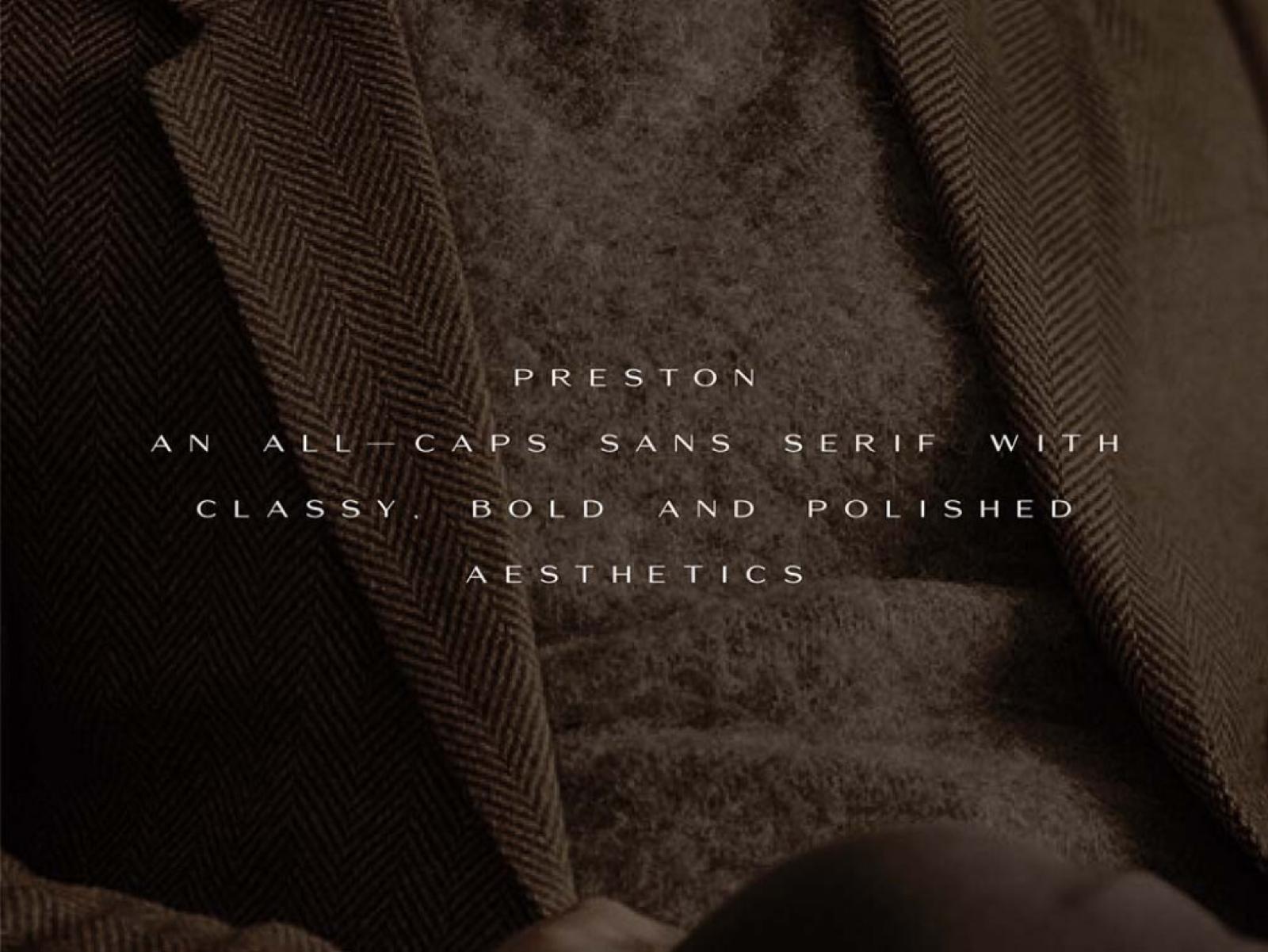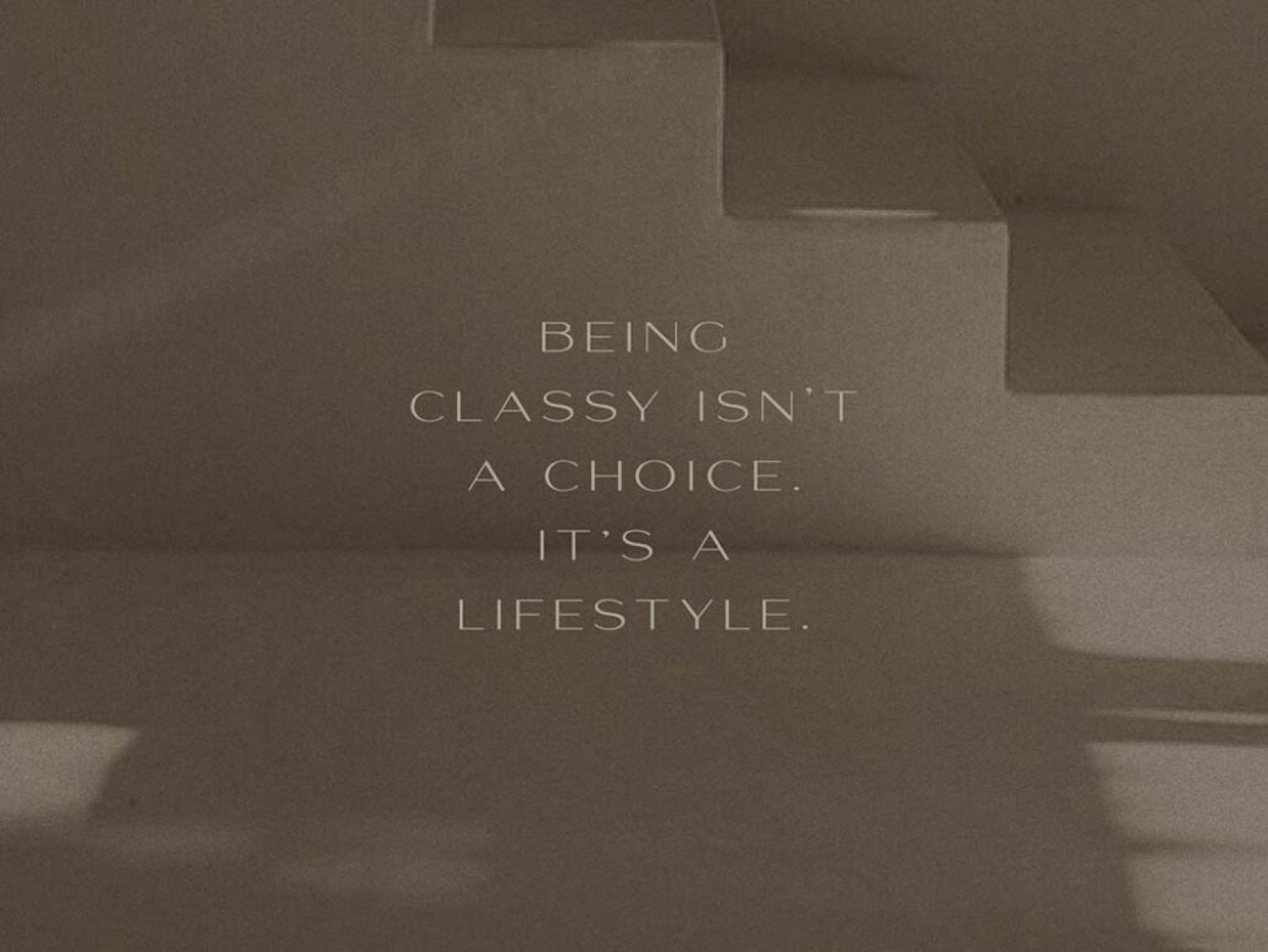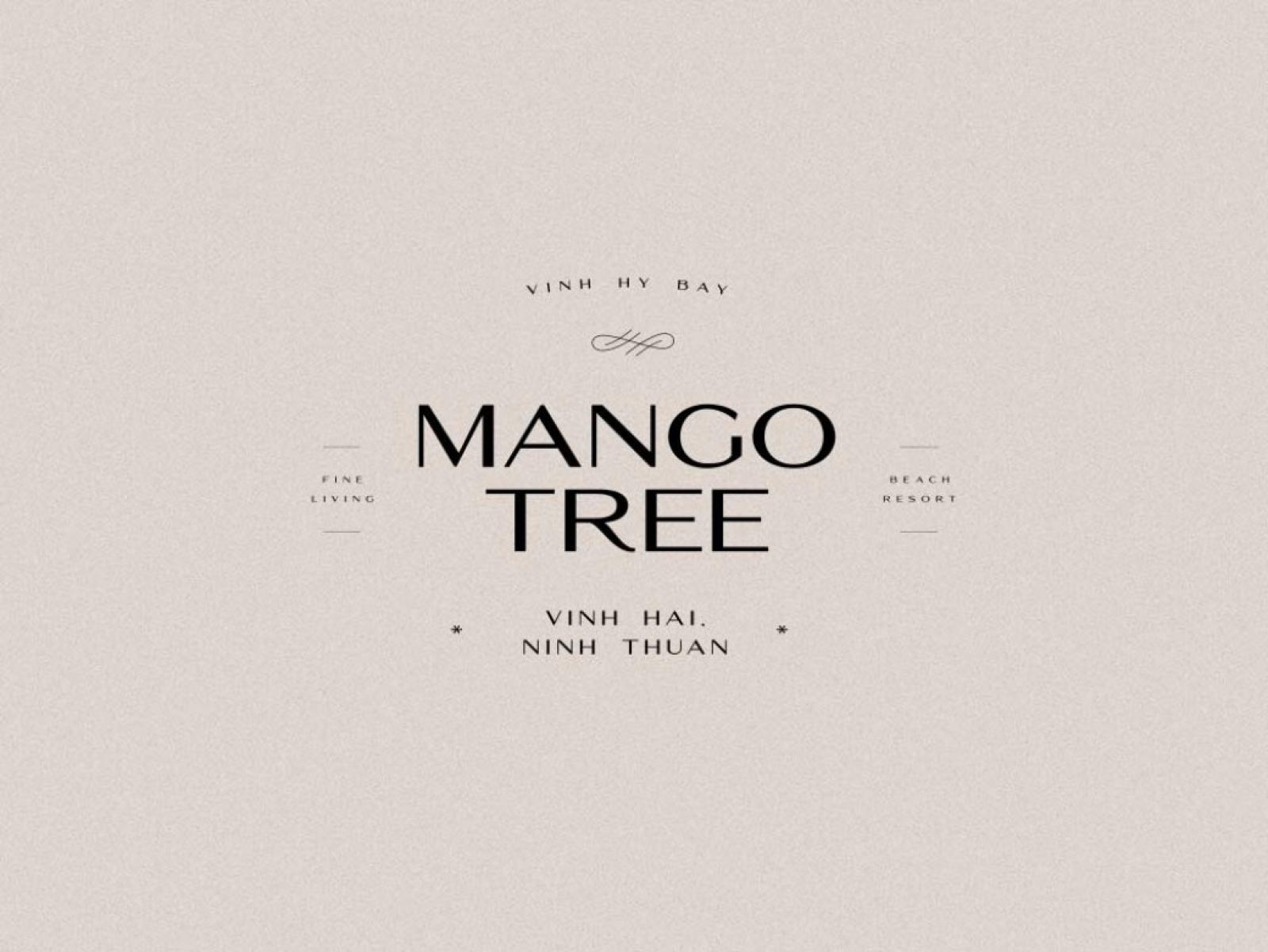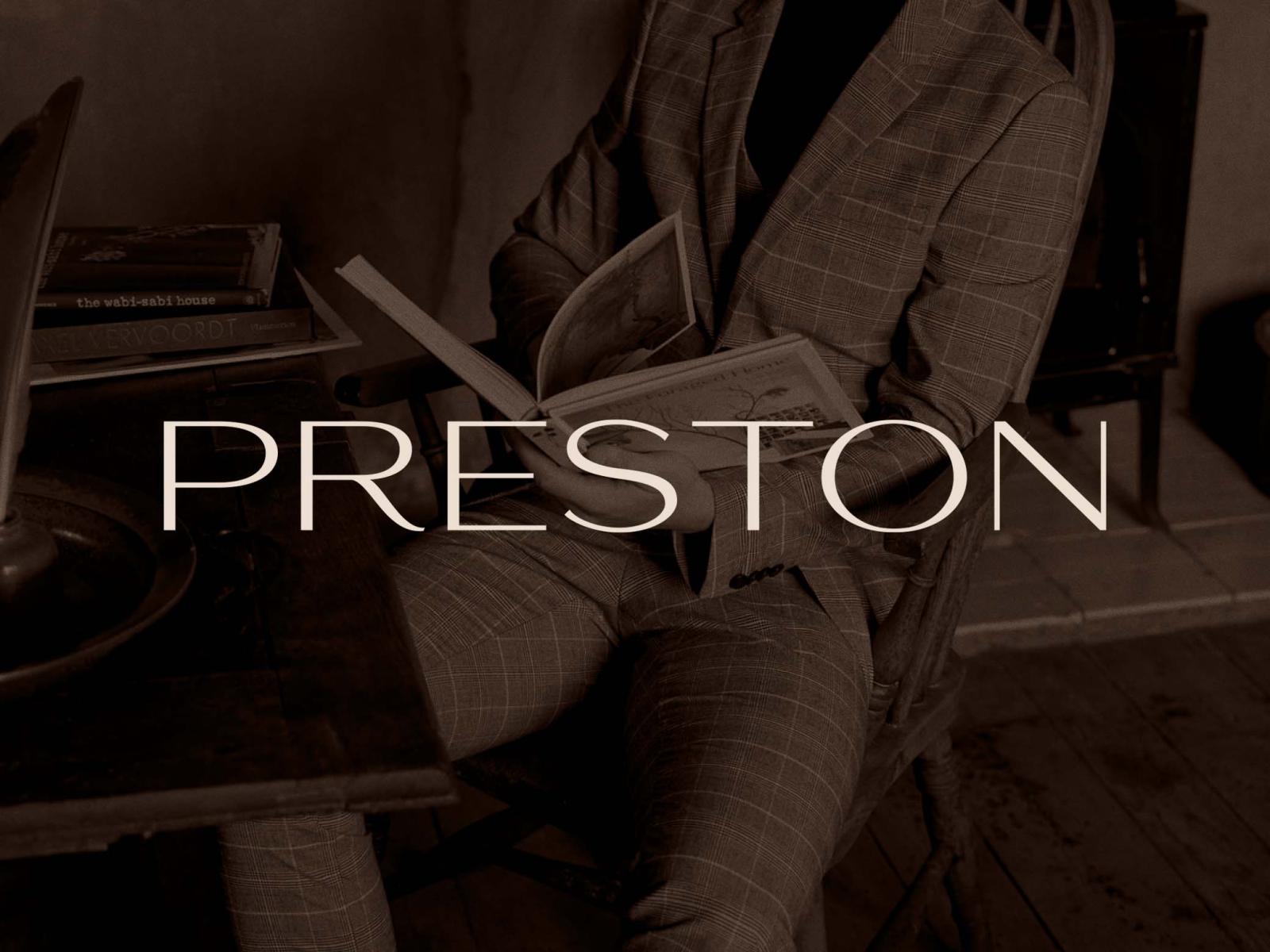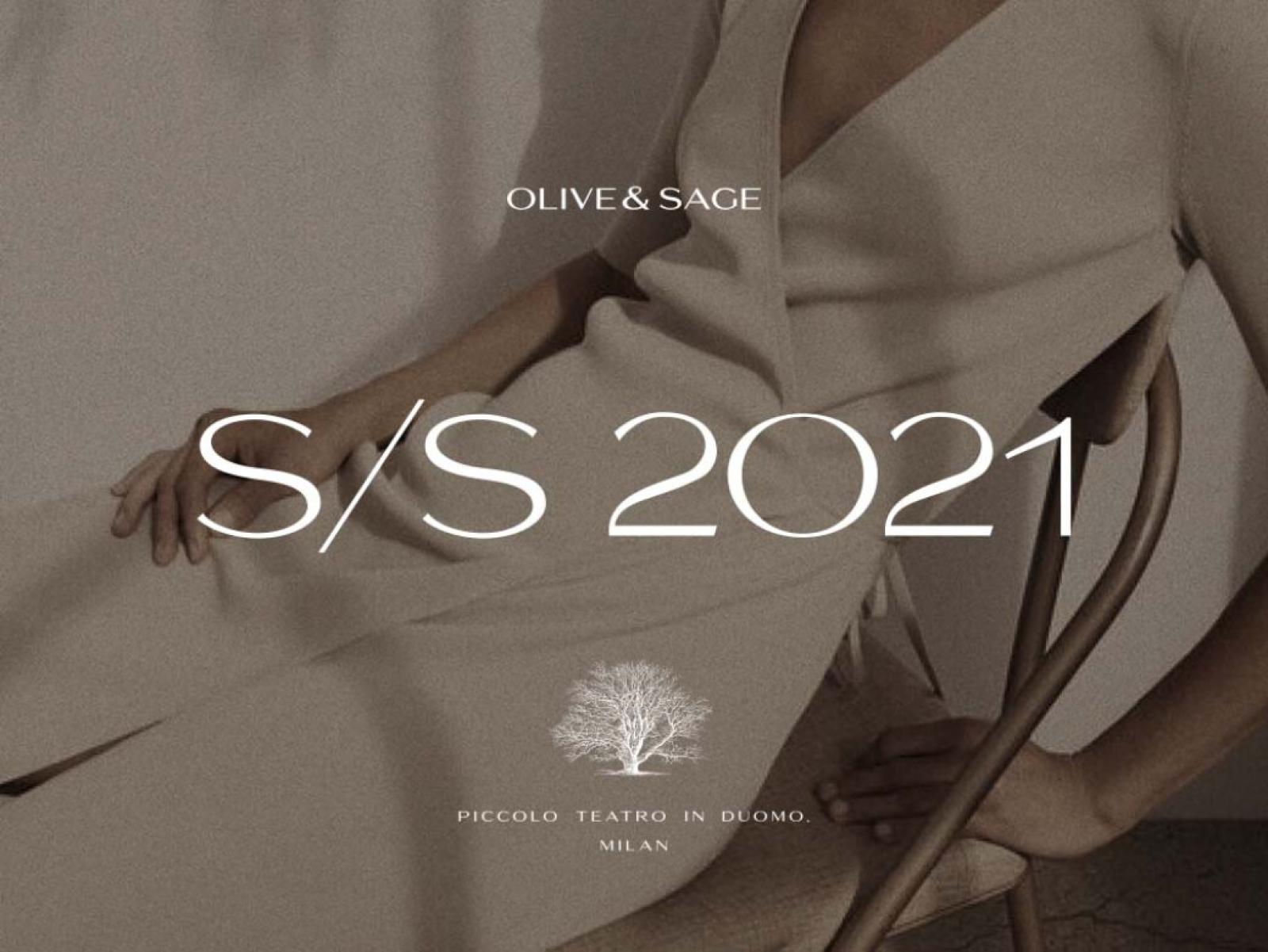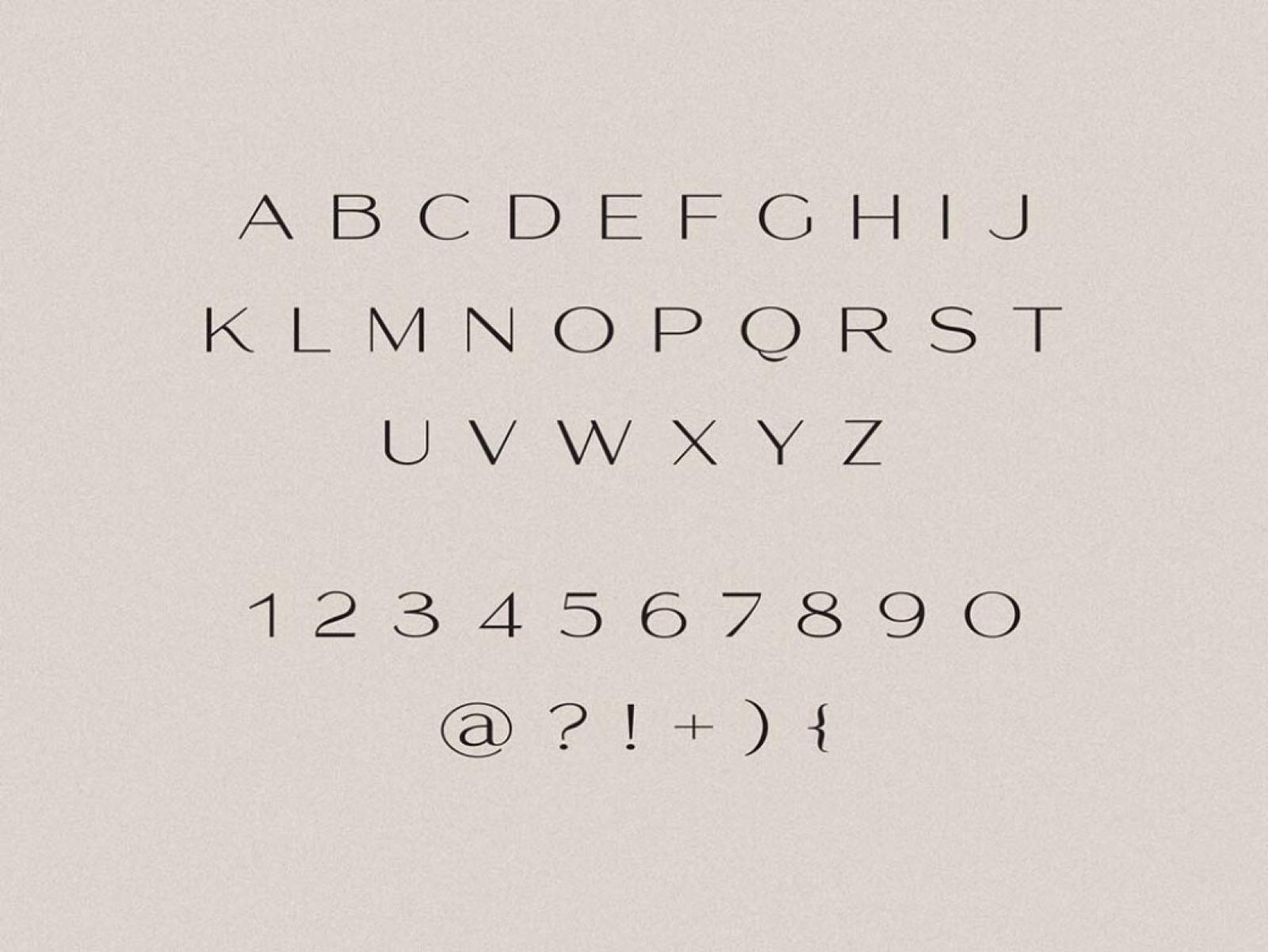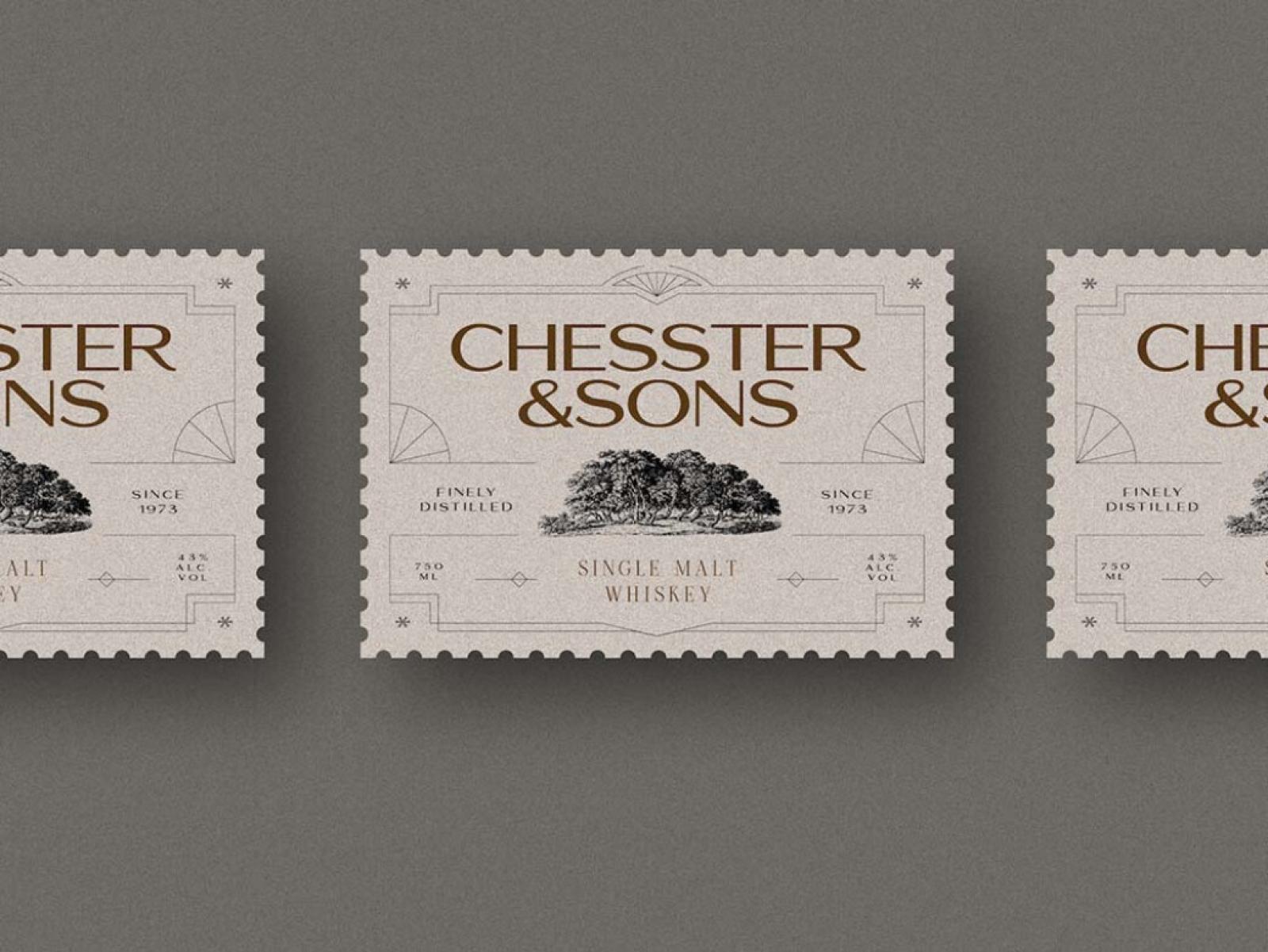
Preston Classy Sans Serif Font
The formula for classy and distinctive design is simple. First, it's a great concept to show off your personality. Second, you should add a gorgeously looking font  — just like Preston Sans Serif!
Preston is a gorgeous all-caps sans serif font designed with intense attention to modern typographic trends. It was made precisely for simple yet polished projects: elegant logos, packaging, social media, and more. Preston features standard uppercase letters, punctuation marks, and numerals. Every character will provoke awe and fascination, so beautiful and flawless-balanced this set it.